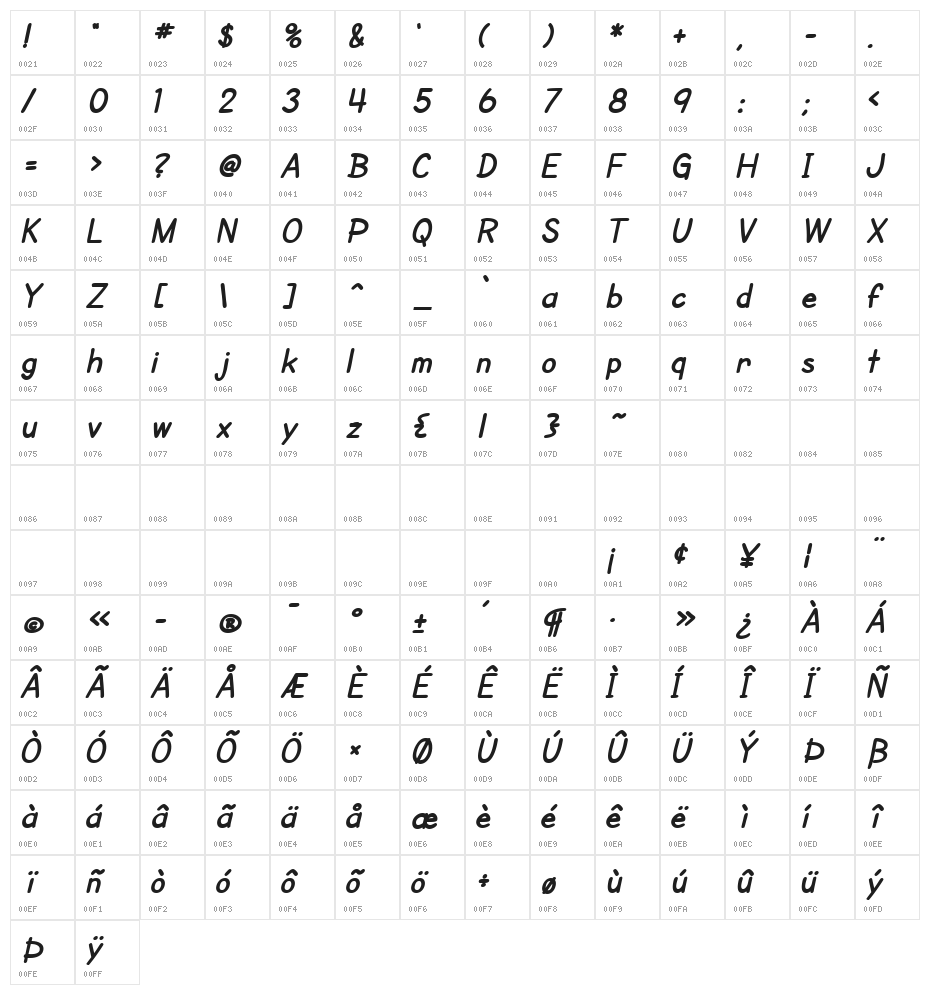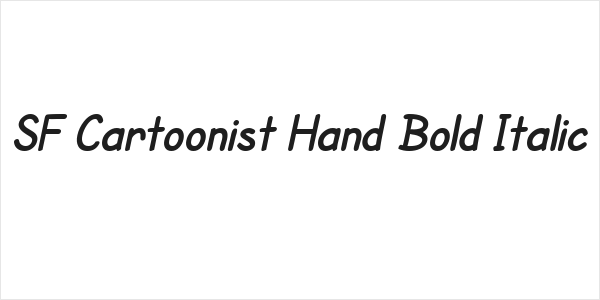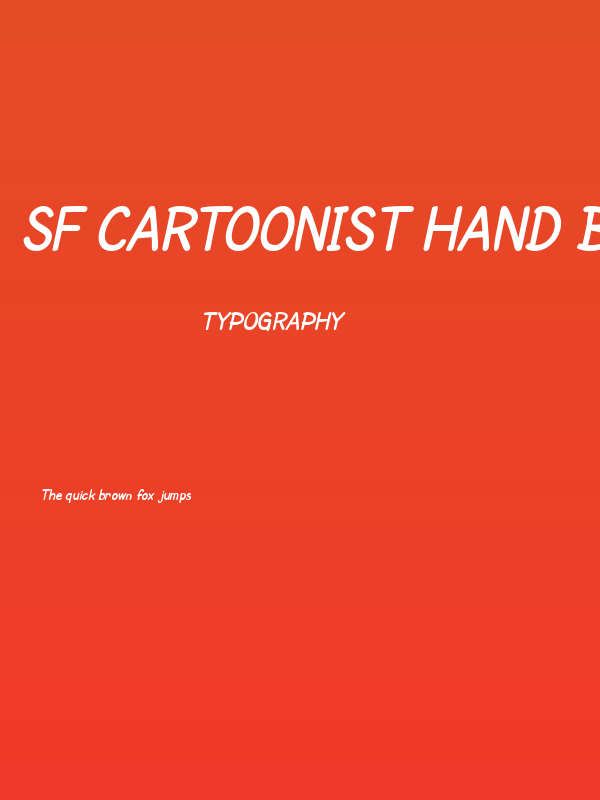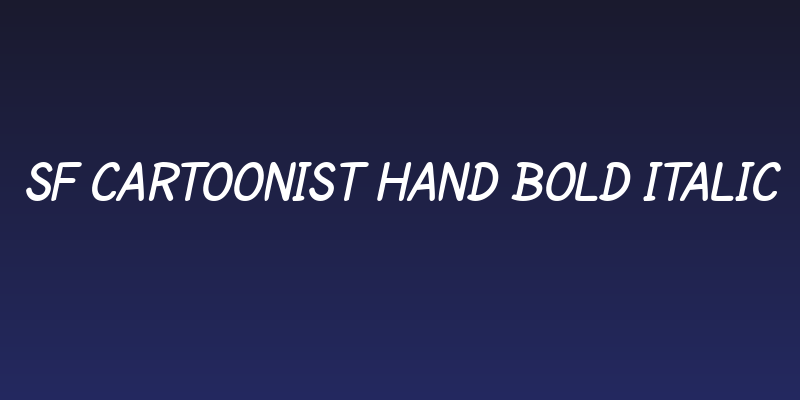
SF Cartoonist Hand Bold Italic Font
SF Cartoonist Hand Bold Italic Description
This playful and dynamic font features a handwritten style with bold and italic characteristics. The letters are slightly slanted, giving a sense of motion and energy. The strokes are thick and rounded, adding a friendly and approachable feel. The uppercase and lowercase letters are well-balanced, maintaining consistency throughout. Numbers and special characters are included, matching the overall style with a whimsical touch. This font is perfect for projects that require a fun and informal tone.
Overall StylePlayful
Use CaseHeadlines, Logos, Informal Text
Proposed ProjectsIdeal for comic books, children's books, playful branding, and casual invitations.